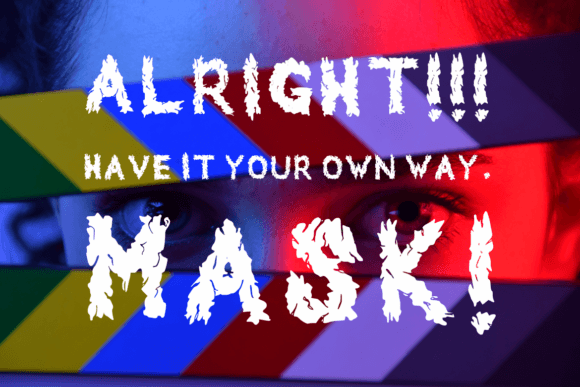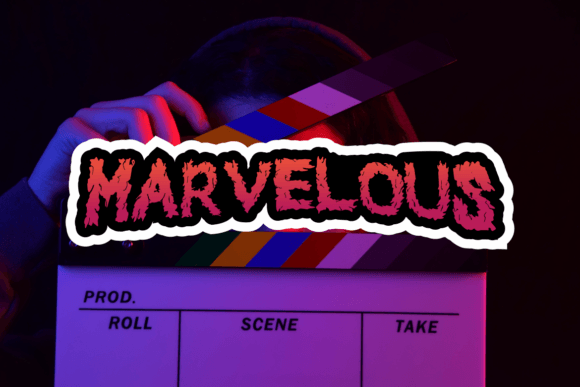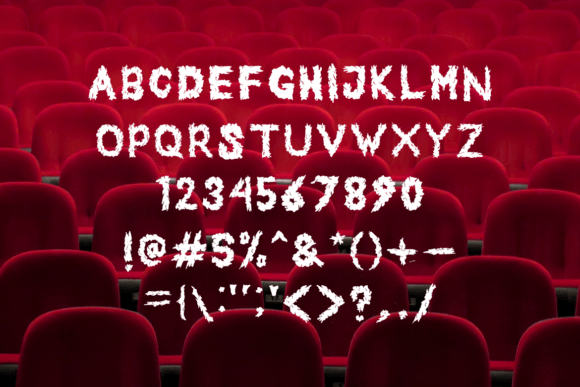
The Fenom Font: A Cool and Unique Display Font for Creative Projects
Are you a designer, crafter, or creative hobbyist looking for a font that will add a touch of personality to your projects? Look no further than Fenom. In this article, we’ll dive into the world of Fenom, exploring its features, how to use it, and some similar fonts you might love.
An Honest Review of Fenom Font
What I Love About Fenom ✨
- 💥 Unique and cool design that’s sure to turn heads
- ✅ Highly legible, even at large sizes
- 🎨 Versatile and can be used for a variety of creative projects, from logos to posters
- 👍 Well-suited for display text, titles, and headings
- ⚠️ May not be the best choice for body text or small font sizes
- 🤔 Some users may find the font a bit too bold or overpowering
The Story Behind Fenom: Designer Inspiration
Fenom was designed by a team of creatives who wanted to push the boundaries of traditional typography. Inspired by graffiti and street art, Fenom is a bold and edgy font that’s perfect for making a statement. The designers behind Fenom aimed to create a font that would be both cool and unique, with a personality that would shine through in any project.
Q: What type of projects is Fenom best suited for?
A: Fenom is perfect for creative projects that require a bold and eye-catching font, such as logos, posters, titles, and headings.
Q: Is Fenom a difficult font to read?
A: No, Fenom is highly legible, even at large sizes. However, it may not be the best choice for body text or small font sizes.